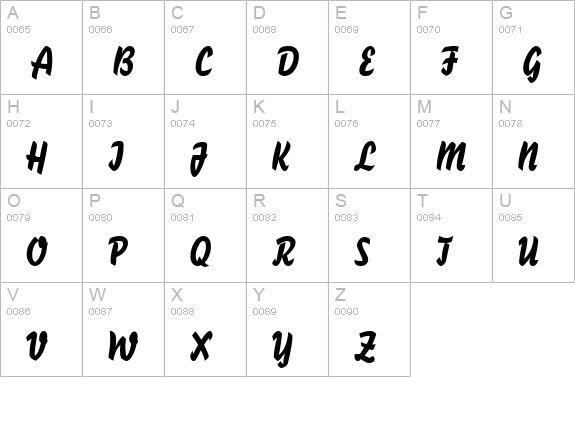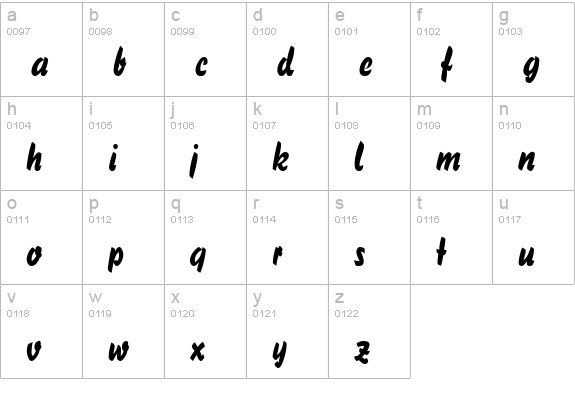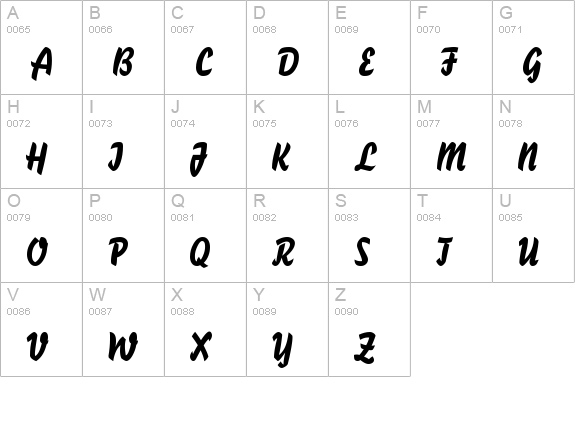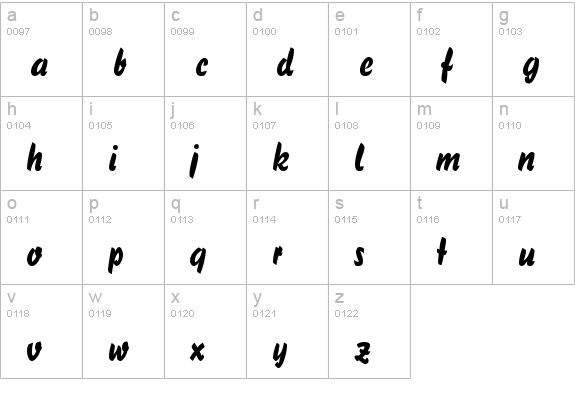
Handybrush Regular Font Details
Handybrush Regular is the standard, neutral variant in the Handybrush typeface family \xE2\x80\x94 well suited to general body text, paragraphs, and standard typographic work.
Handybrush Regular font is a versatile and dynamic typeface that adds a touch of creativity and personality to any design project. This font is perfect for adding a hand-drawn and organic feel to logos, posters, invitations, and more. The brush strokes are bold and expressive, creating a unique and eye-catching visual impact. One of the best things about Handybrush Regular font is that it is available for free. That's right, you can download this amazing font without having to spend a single penny. It's a fantastic opportunity to enhance your designs without breaking the bank. Whether you're a professional designer or a hobbyist, Handybrush Regular font is a must-have in your font collection. Its versatility allows it to be used in various design styles, from modern and edgy to whimsical and playful. It's a font that truly allows you to unleash your creativity and make your designs stand out. To get your hands on this incredible font, simply head over to FontsMarket.com, where it is freely available for download. Don't miss out on the opportunity to enhance your designs with the captivating and expressive Handybrush Regular font. Download it now and let your creativity soar.